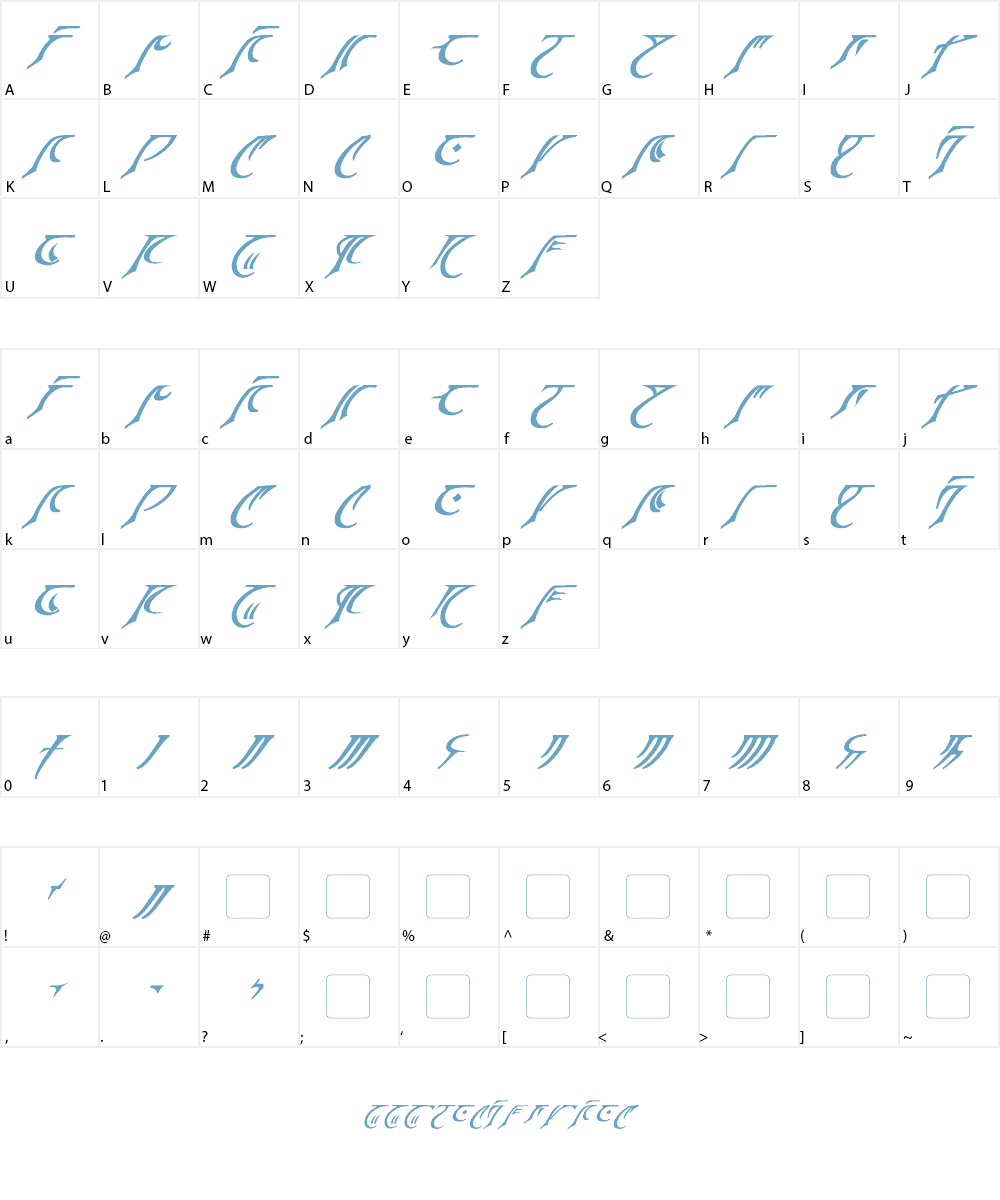
Espruar is the written script for the Elven Kingdoms in Wizards of the Coast’s Forgotten Realms setting for dungeons and Dragons. This face is an artistic, thin, runic found with curved flourishes designed in invoke a ‘fae’ feel. Includes all canon characters. Includes regular, bold, italic, and bold-italic faces.